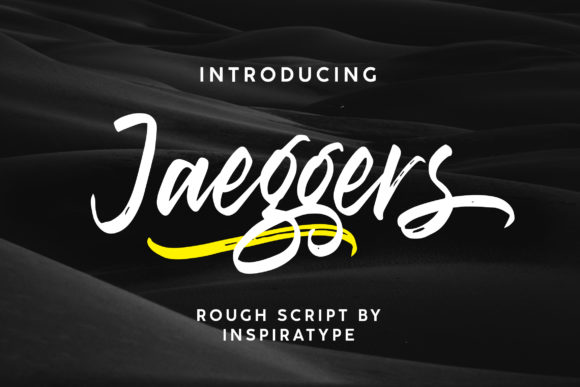
Introducing Jaeggers Font, the exquisite script font crafted by InspiraType, designed to captivate and enthrall your senses. Immerse yourself in the world of handwritten beauty, where each letter dances across the page with effortless grace and charm. Let Jaeggers Font ignite your creativity and transform your designs into masterpieces.
Jaeggers Font possesses an allure that is both timeless and contemporary. Its meticulously crafted characters exude a sense of authenticity and warmth, evoking a sense of nostalgia while simultaneously embracing the modern aesthetic. With its enchanting flow and captivating curves, Jaeggers Font adds a touch of elegance and sophistication to any project, whether it's a heartfelt letter, a stunning invitation, or an eye-catching logo.
Step into a world of endless possibilities with Jaeggers Font. Its versatile nature allows it to effortlessly adapt to a myriad of styles and themes. Whether you're crafting a whimsical wedding invitation, designing a captivating social media post, or creating a unique branding identity, Jaeggers Font will elevate your designs to new heights. Its versatility extends beyond digital realms, as it seamlessly integrates into the world of physical art. Unleash your inner artist and let Jaeggers Font grace your handmade cards, personalized gifts, and home décor projects, adding a touch of personal flair to every creation.
Jaeggers Font is more than just a font; it's an experience. It's a journey into the realm of imagination, where words transform into art, and emotions find expression through each stroke and curve. Its captivating charm will leave an indelible mark on your audience, evoking a sense of wonder and delight. With Jaeggers Font, your designs will transcend the ordinary and become extraordinary, captivating hearts and minds wherever they may wander.